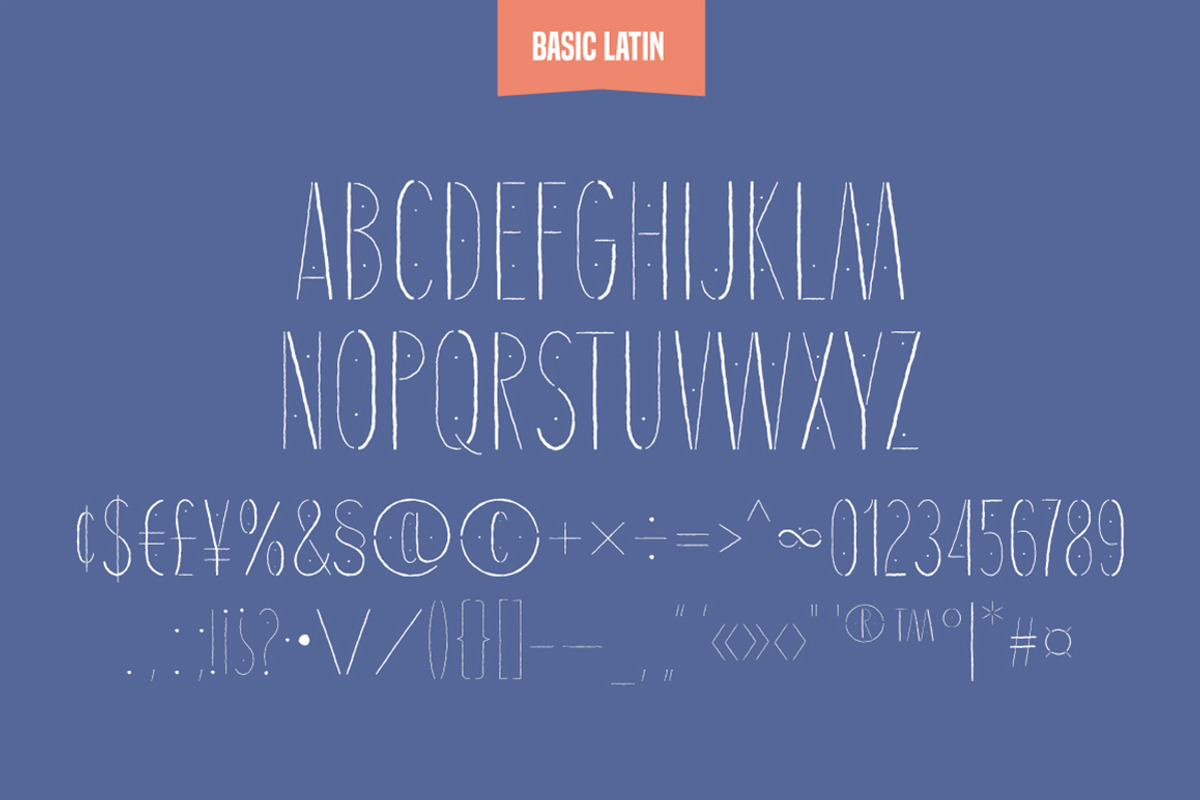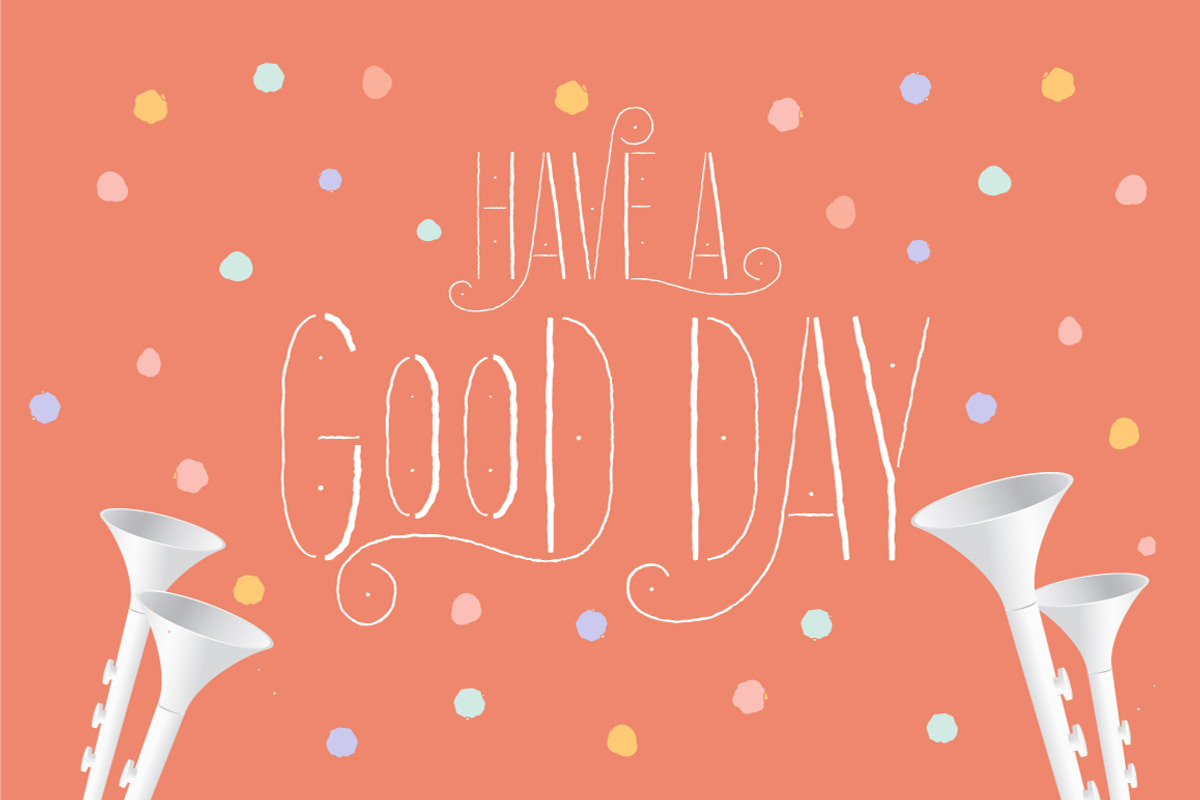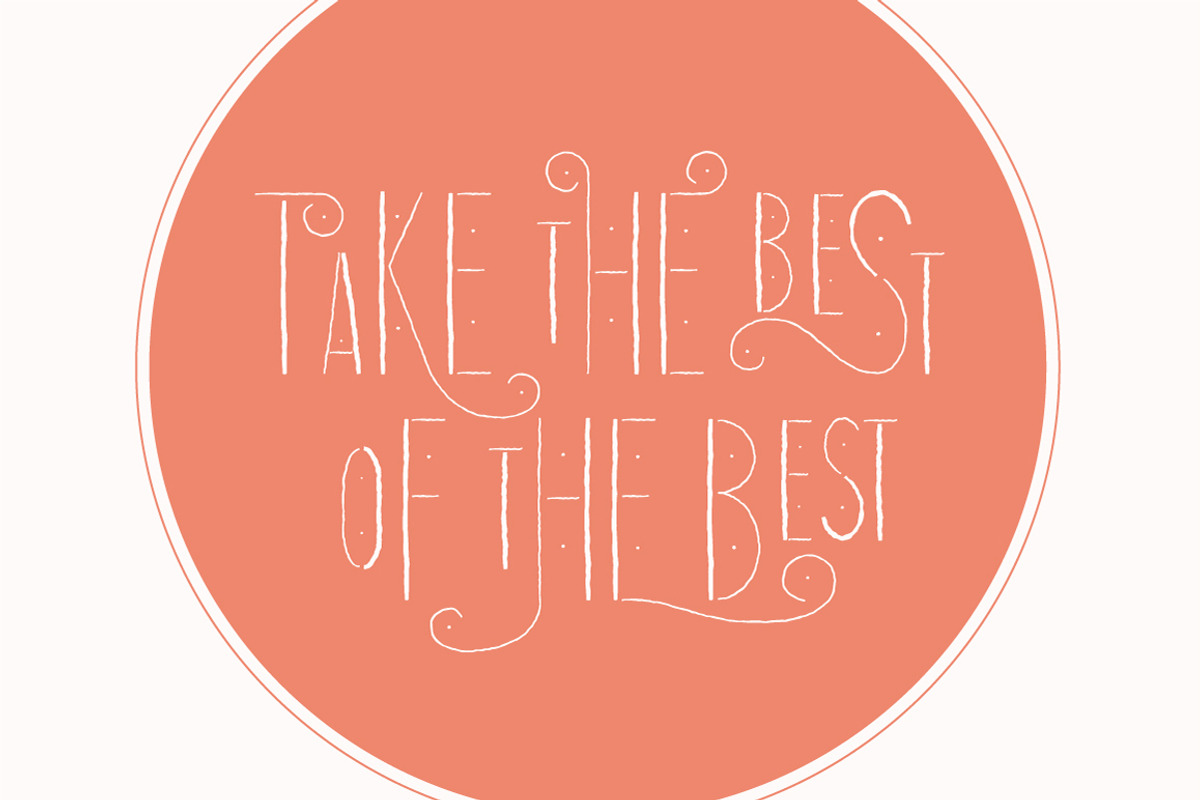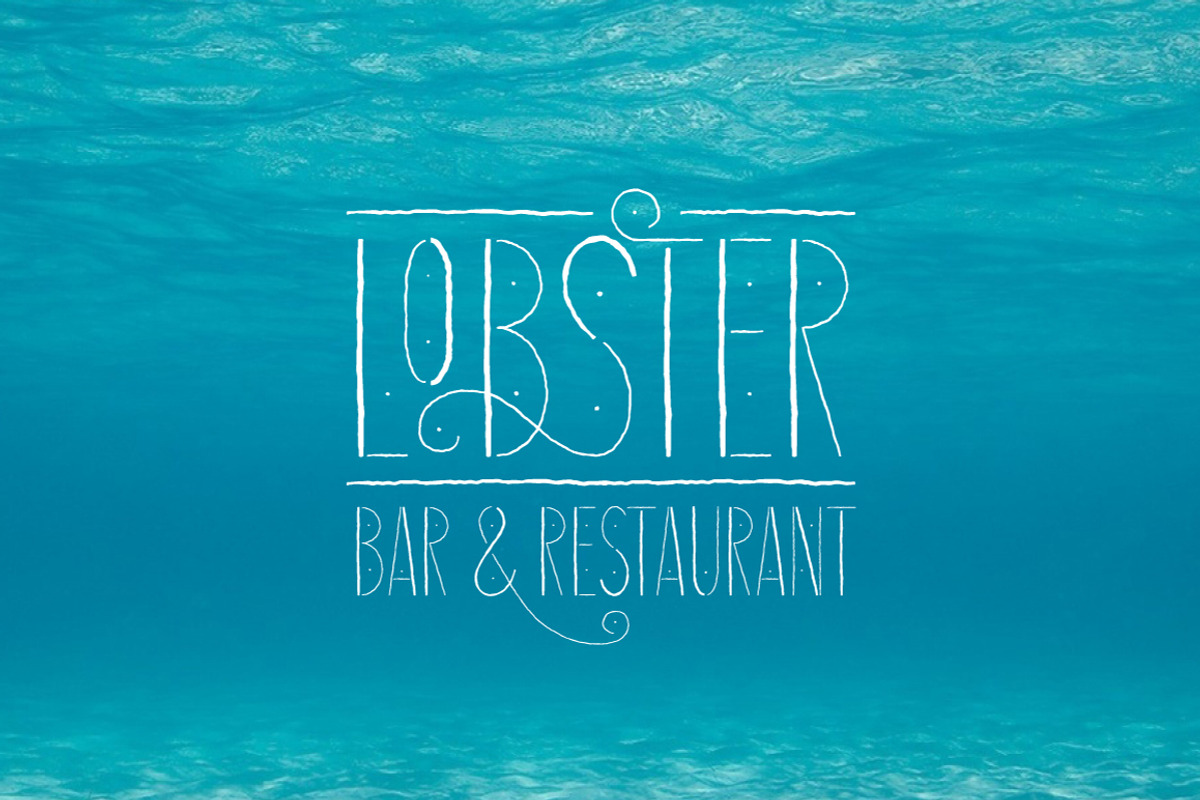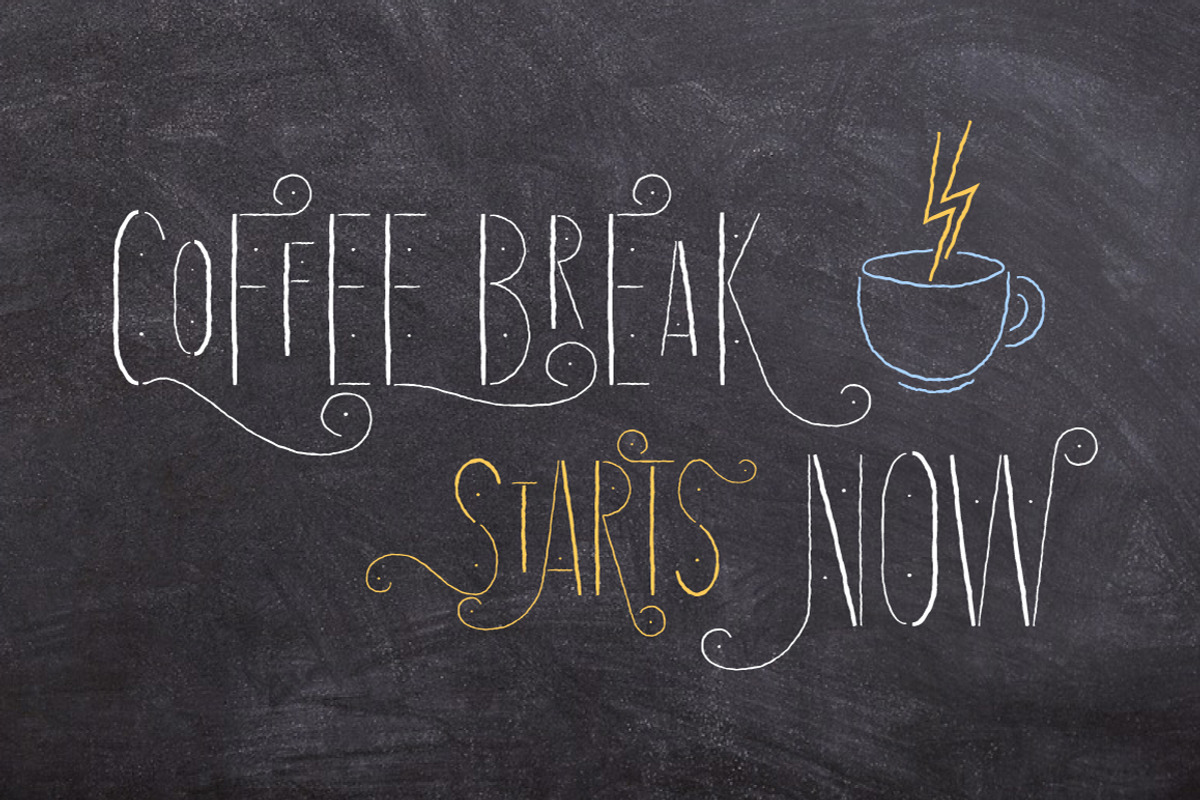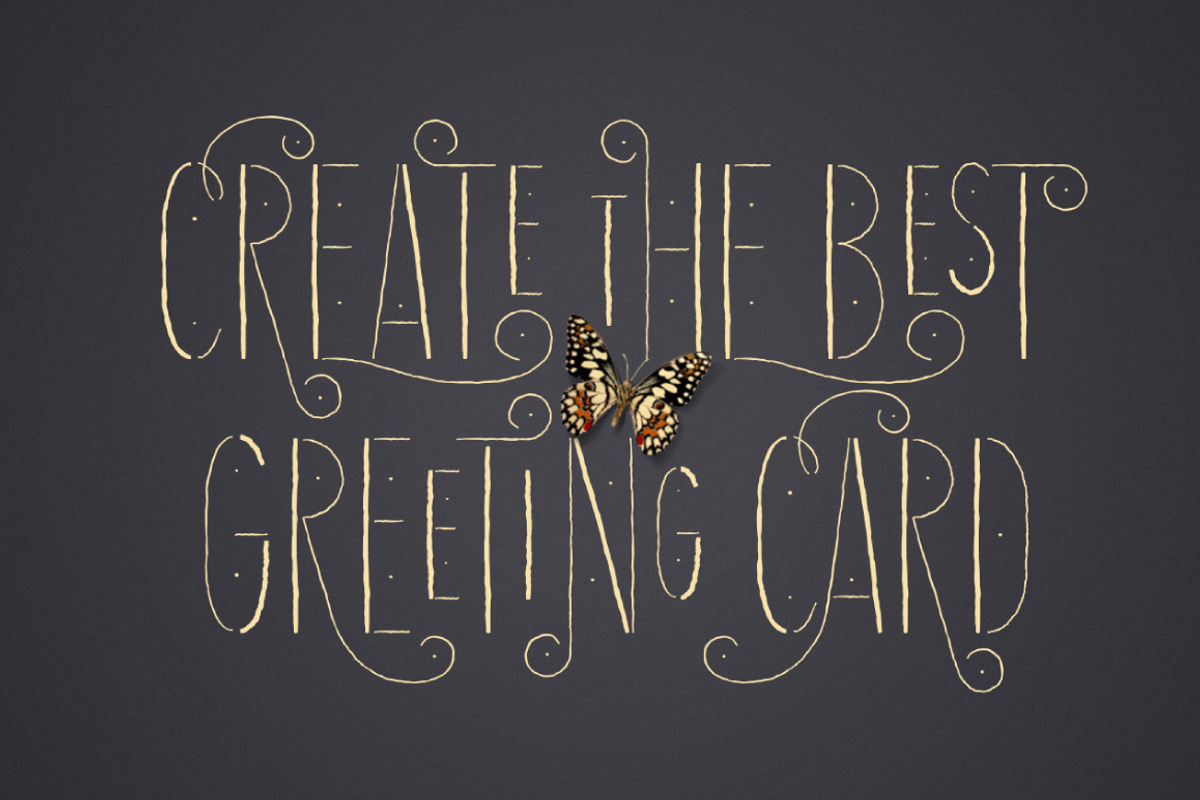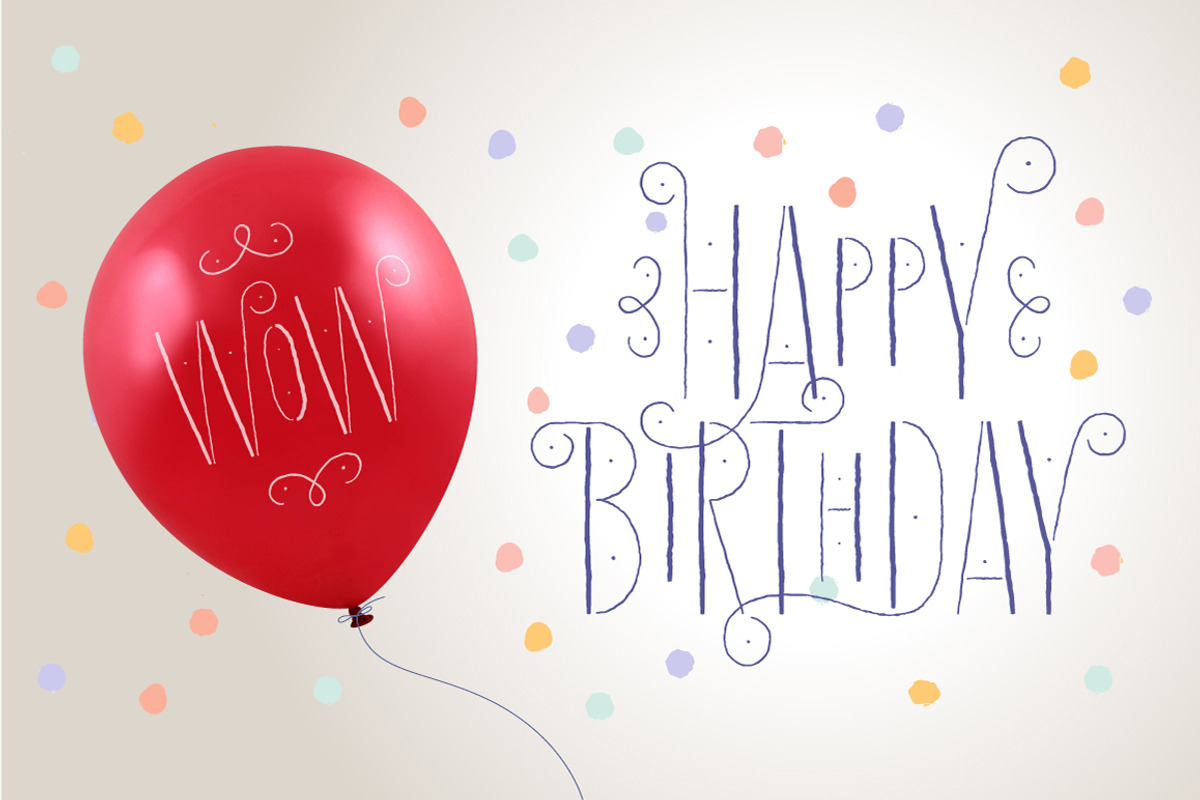
Good Day Font
Welcome my new hand lettered, cute and decorative font Good Day. The font family includes two fonts – Regular and Italic – both with Latin multilingual uppercase letters, lowercase letters, numbers and basic punctuations. With so many stylistic alternates and swashes it’s easy to create cute designs and signs for wedding branding, quotes, ads, logos, prints, social media texts, blogs, and so much more. Swashes are controlled by adding 0/1/2 before or after any letter while alternates can be chosen from glyph panel in Adobe apps. Really very easy to use!
- The font family includes two fonts – Regular and Italic – both with Latin multilingual uppercase letters, lowercase letters, numbers and bas
- With so many stylistic alternates and swashes it’s easy to create cute designs and signs for wedding branding, quotes, ads, logos, prints, s
- Swashes are controlled by adding 0/1/2 before or after any letter while alternates can be chosen from glyph panel in Adobe apps.